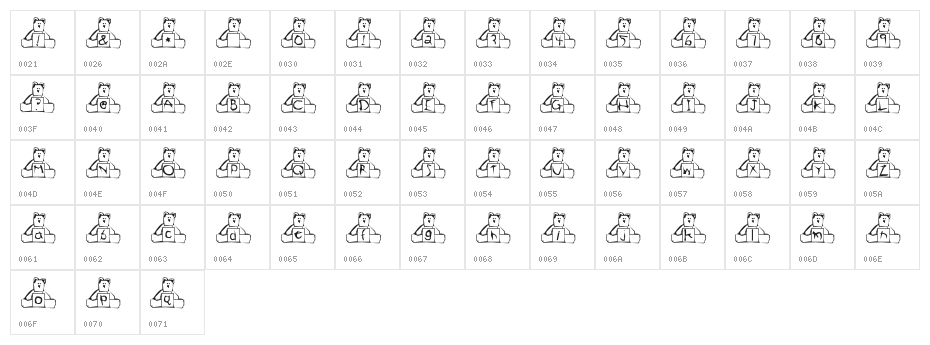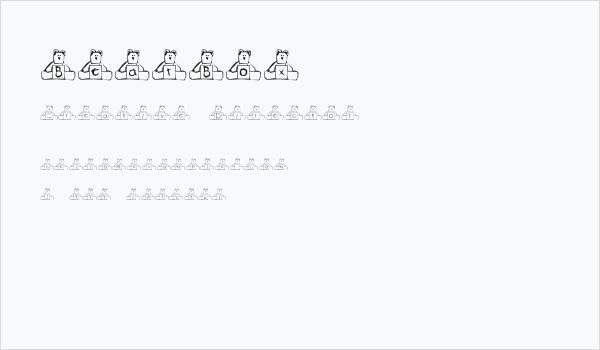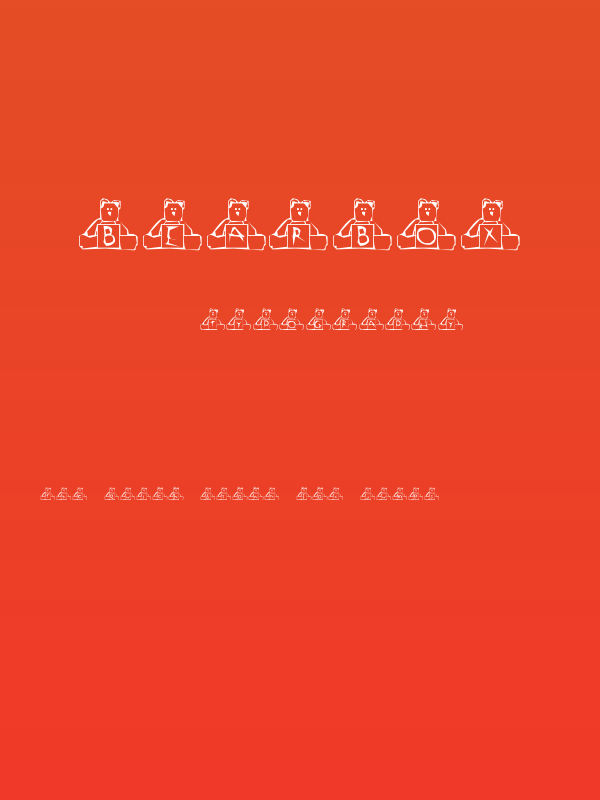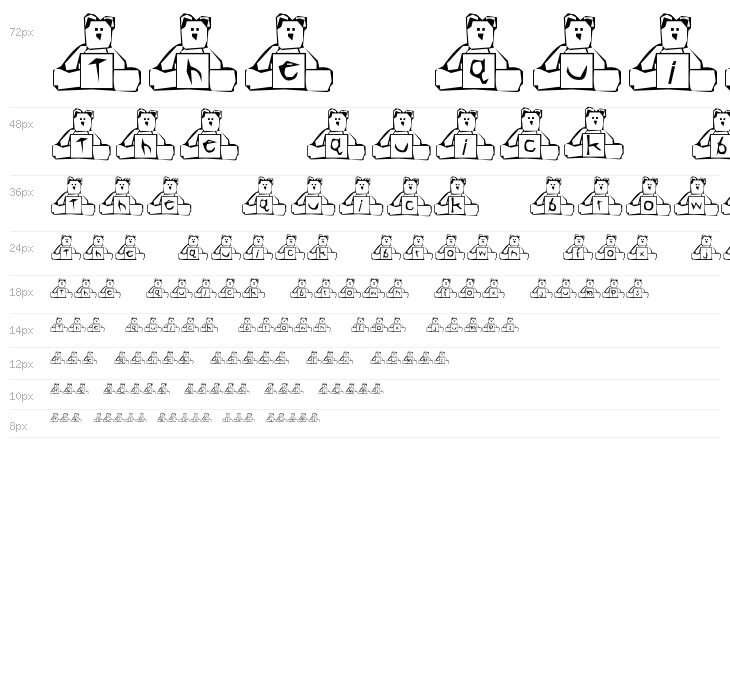
BearBox Font
This playful and whimsical font features letters and numbers encased within cartoonish bear figures. Each character is uniquely designed with a bear holding a sign displaying the letter or number, adding a fun and engaging element to the typography. The bears have a simple, outlined style, which makes the font visually appealing and easy to read. The characters are evenly spaced, ensuring clarity and legibility. This font is perfect for projects that require a lighthearted and friendly touch, such as children's books, playful branding, or educational materials.
Overall StylePlayful
Use CaseHeadlines, Logos, Invitations
Proposed ProjectsIdeal for children's books, playful branding, educational materials, and fun invitations.